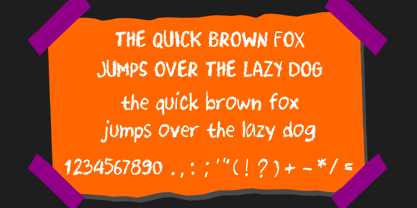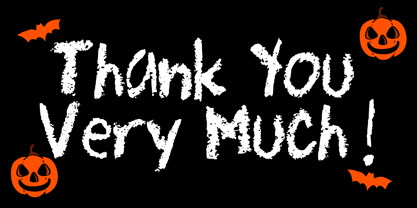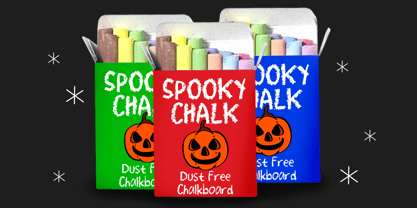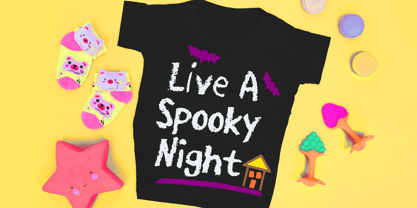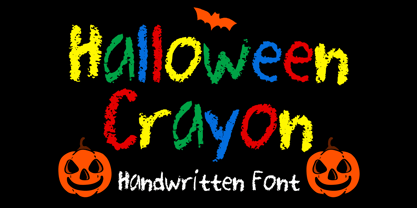
Halloween Crayon
by Mvmet
The Halloween Crayon Font Family was designed by Gabriel Valentinus and published by Mvmet. Halloween Crayon contains 1 styles. More about this family
Halloween Crayon is a delightful and whimsical handwritten font characterized by its crayon or chalk style, perfect for a variety of everyday applications. This versatile typeface enhances various design projects, making it ideal for stickers, t-shirt graphics, captivating logos, magazine or book covers, comics, and playful cartoon illustrations. With its unique charm and creativity, Halloween Crayon adds a fun and vibrant touch to all your design endeavors, ensuring your work stands out beautifully.
Designers: Gabriel Valentinus
Foundry: Mvmet